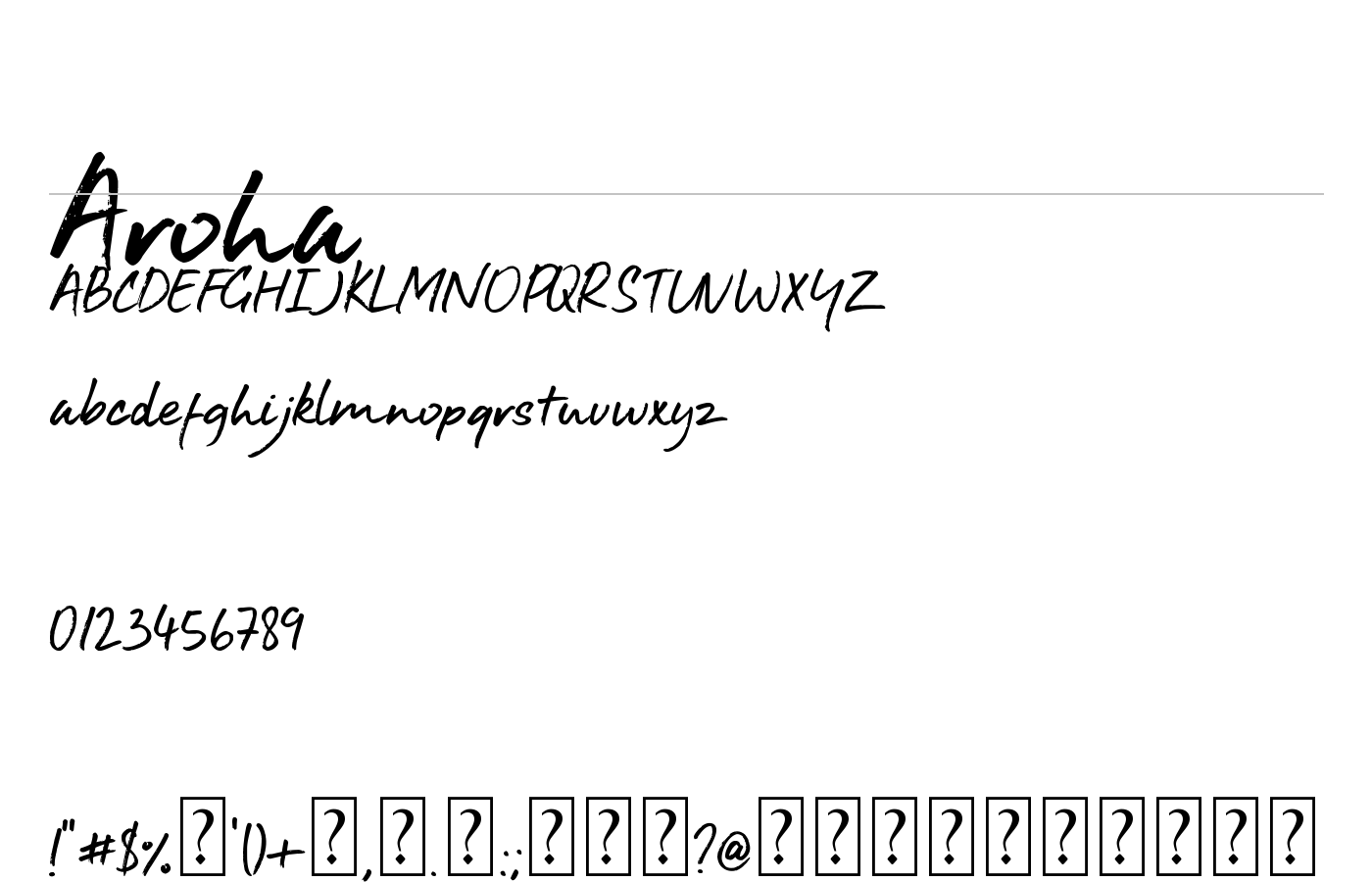
Aroha is a casual, hand-brushed script font with a lively and energetic feel. Its irregular strokes and slightly textured, uneven lines give it a personal, expressive touch, making it perfect for creative projects, branding, and invitations that seek a warm and authentic style. This font works well for headlines, logos, and designs that want to convey friendliness and artistic flair.
Aroha Font
About Aroha Font
| Font family | Aroha Font |
| Designer | Zaffar Ansari |